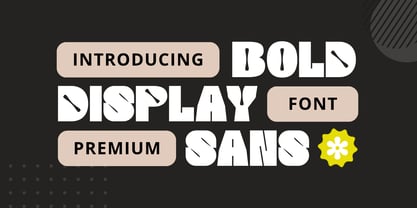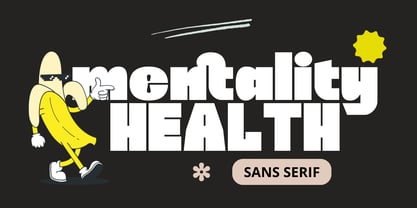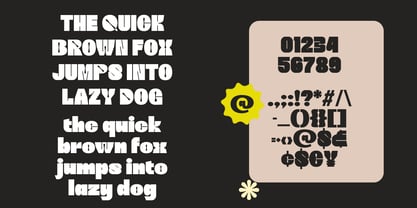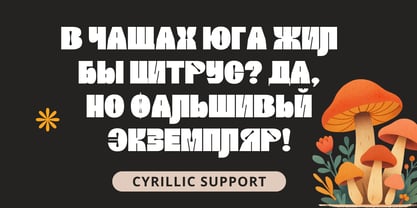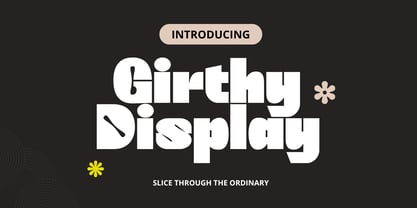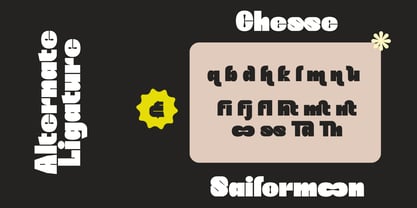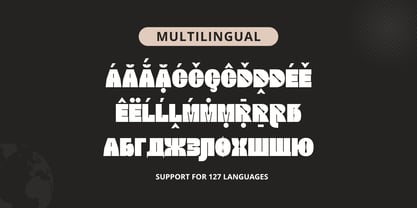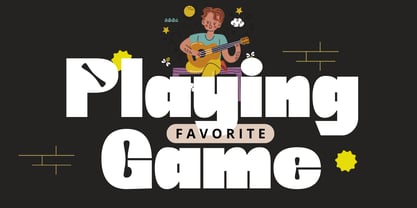
Girthy Display
by Silverdav
The Girthy Display Font Family was designed by David Kasidi and published by Silverdav. Girthy Display contains 1 styles. More about this family
Forget boring typography. Meet Girthy Display—a powerhouse Bold Display Sans crafted for those who aren’t afraid to stand out while maintaining high technical functionality.
Tired of finding unique display fonts that lack multilingual support? Your search ends here. With its artistic curves and strong, stencil-inspired cuts, Girthy Display delivers a commanding visual identity that ensures your branding projects are impossible to ignore.
Why Girthy Display is Your Ultimate Design Solution:
• Unique Identity: A heavy-weight visual hook designed to grab attention instantly.
• Global Reach: Full support for 127 languages, including comprehensive Cyrillic characters.
• Ultimate Versatility: The perfect solution for high-impact logos, cinematic posters, edgy streetwear, and modern digital branding.
Designers: David Kasidi
Foundry: Silverdav